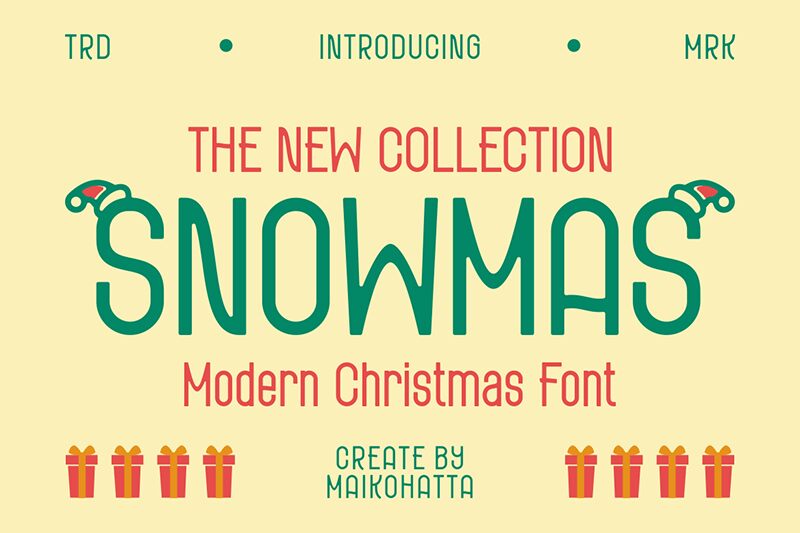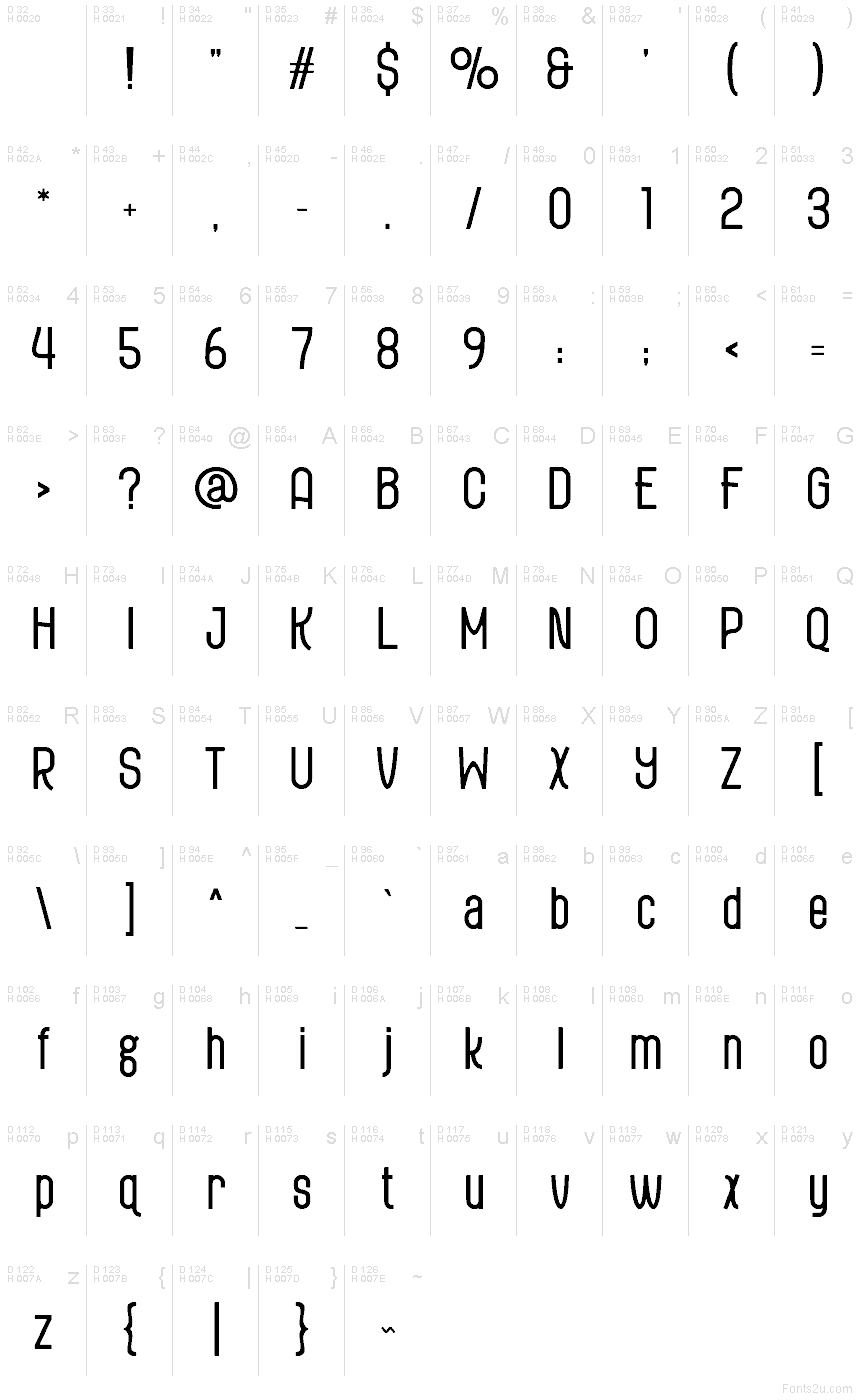
Snowmas font by Gilang Ternadho is a free Christmas holiday typeface that turns every word into a strand of glowing lights. Tall, narrow letters with rounded corners feel like they’ve been hand-bent from warm wire, giving your layouts a cozy, handmade sparkle without looking childish. The smooth monoline strokes and generous vertical rhythm make headlines feel festive and airy, even when space is tight.
Using Snowmas, you can quickly dress up Christmas cards, party invitations, advent calendars, seasonal posters, gift tags, and social media graphics with a modern winter vibe. This free font shines on large titles and short phrases; pair it with a simple sans-serif for body text and let Snowmas handle the greetings and big moments.